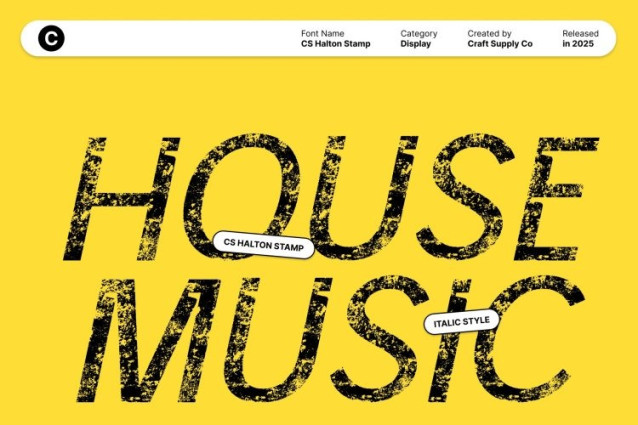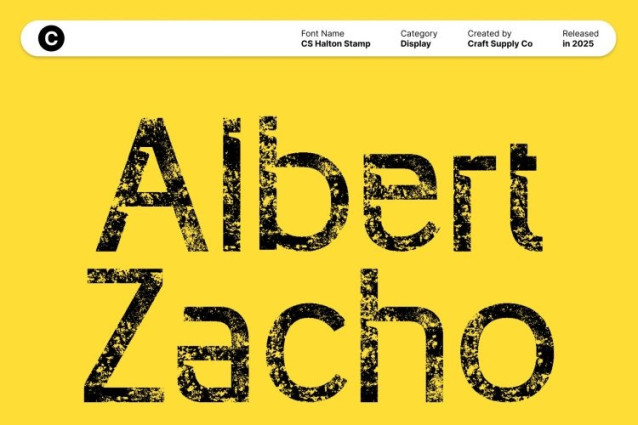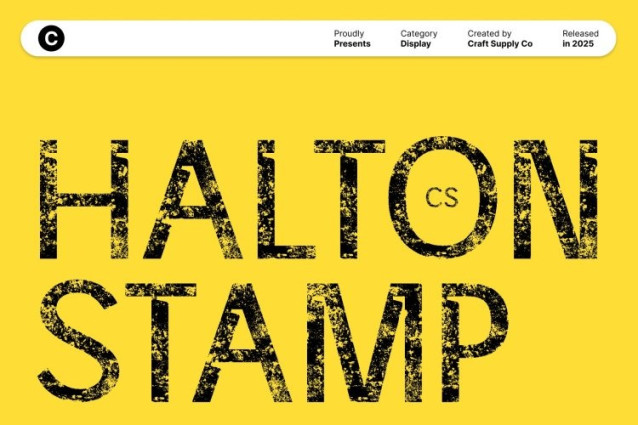
CS Halton Stamp Font
CS Halton Stamp Font This font showcases clean, well-defined letterforms designed to deliver clarity and confidence. Its precise shapes create a professional and modern impression, making it stand out in layouts that require order, strength, and refined visual impact. This structural integrity gives your designs a polished and dependable feel.
Inktrap Details for Added Sharpness and Identity
The subtle inktrap features add depth and nuance to the otherwise clean sans serif construction. These cut-in details enhance visibility at display sizes while also giving the font a distinctive, contemporary character. They enrich the design with a hint of sharpness and personality, making the typeface visually memorable.
Vintage Texture Through Stamp Effect
The stamped texture introduces an aged, tactile quality that softens the precision of its form. This vintage detail adds warmth and individuality, creating a harmonious blend of structure and artistic roughness. It gives each letter a handcrafted vibe, perfect for designs that value authenticity and expressive texture.
Ideal for Branding, Posters, and Editorial Projects
Versatile and eye-catching, works beautifully across branding, poster design, and editorial layouts. Its mix of professional structure, inktrap character, and vintage texture ensures your typography feels both contemporary and expressive. Whether you’re creating bold headlines or polished visual identities, this font delivers a standout balance of clarity and creativity.